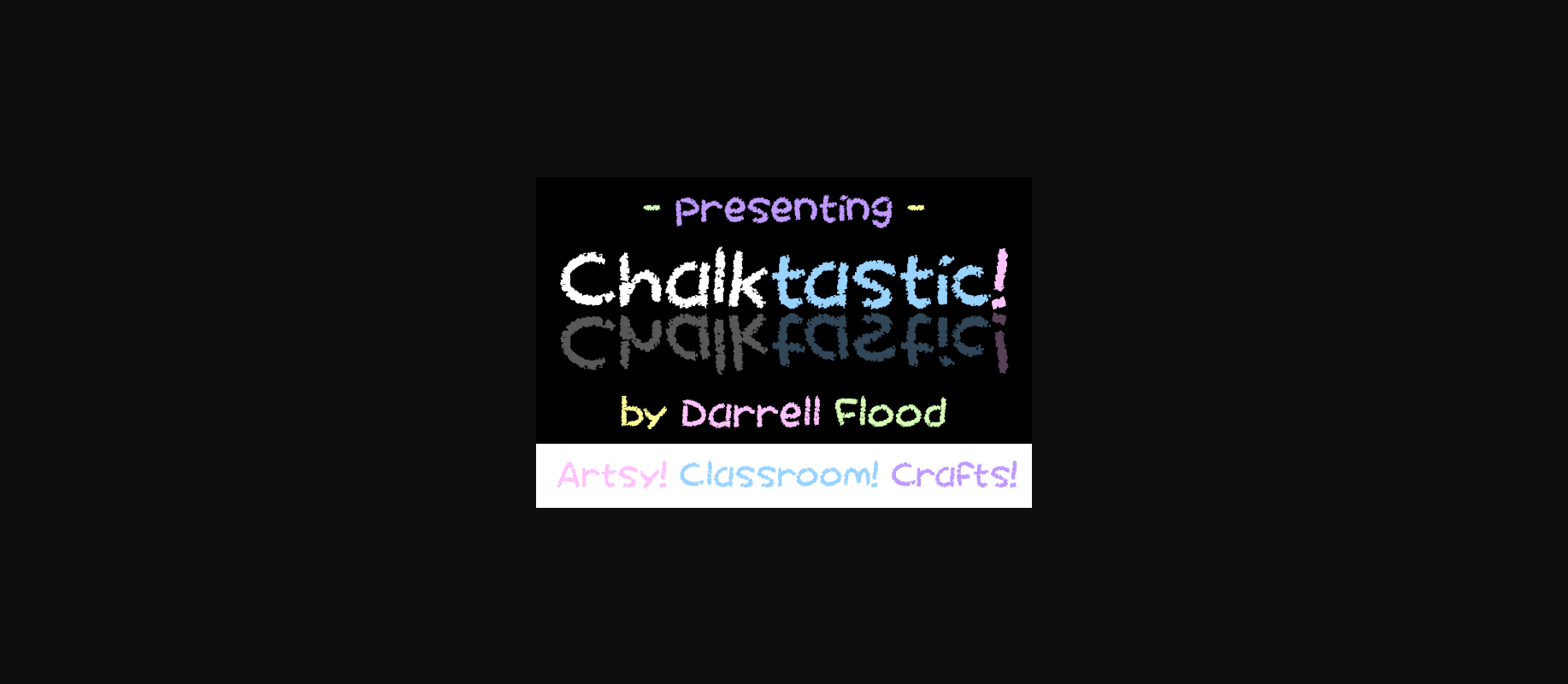
Chalktastic Font
About Chalktastic Font
Chalktastic is a child-like, hand drawn font in a cute chalk-like style. It comes with complete upper and lower case and is perfect for classroom settings and arts and crafts projects!